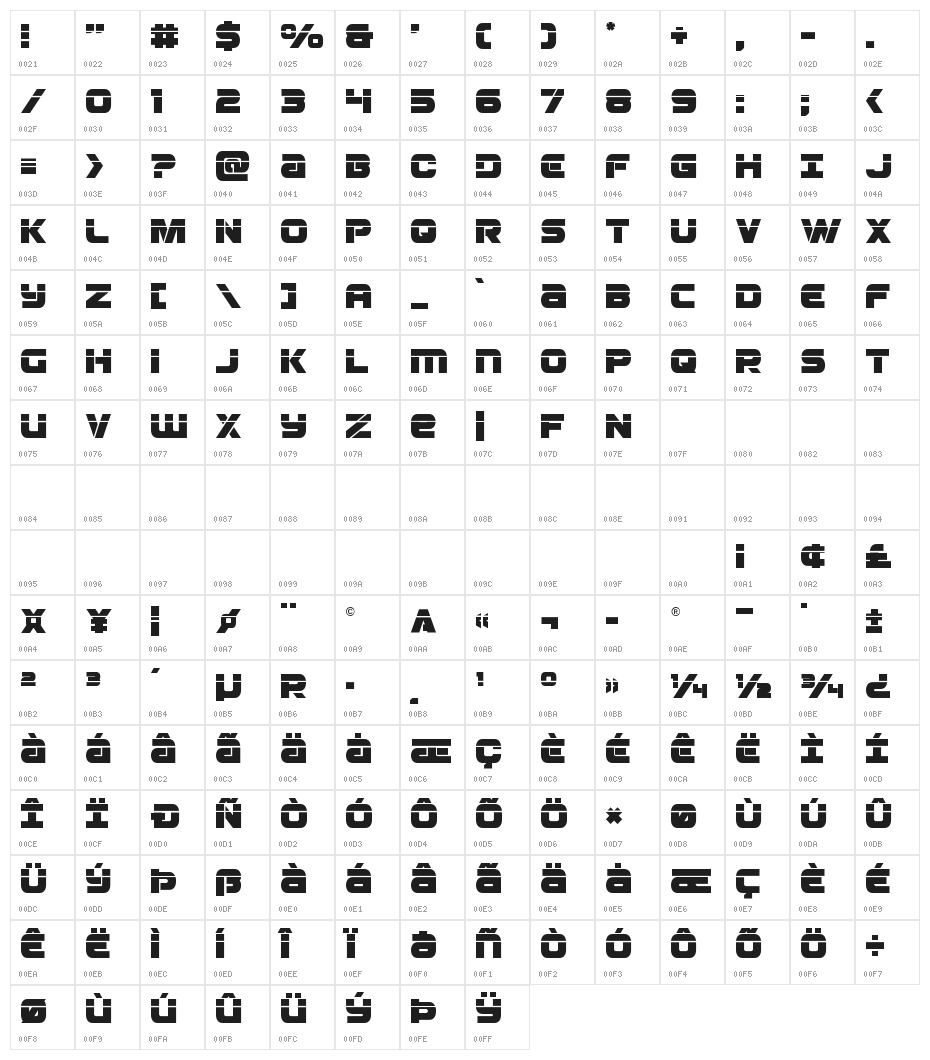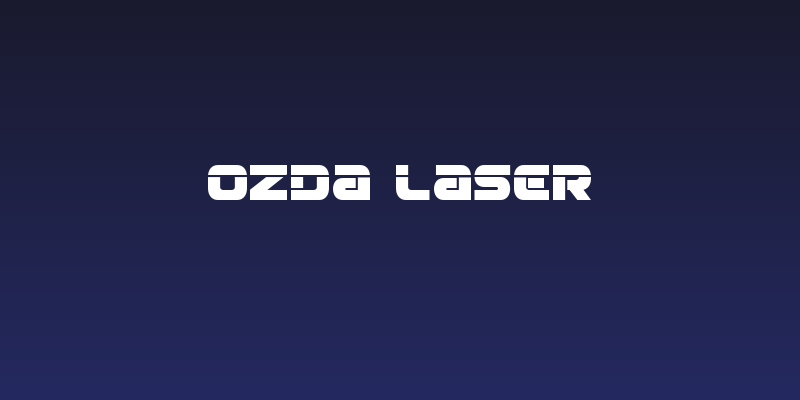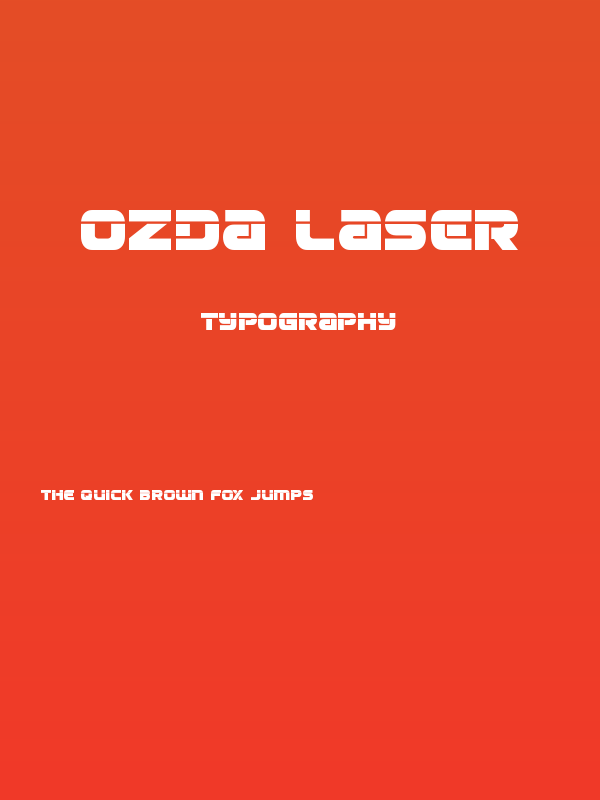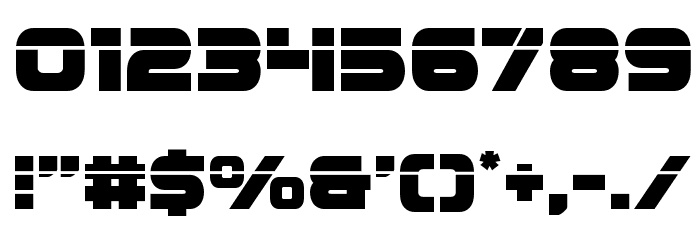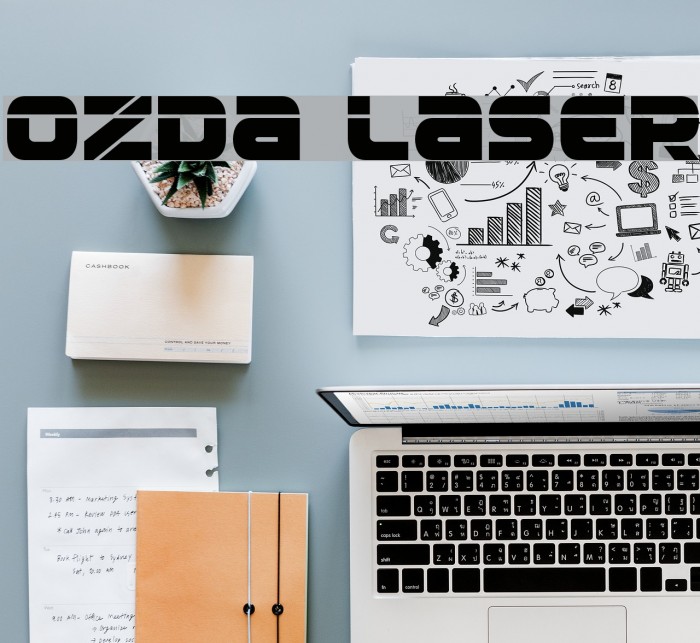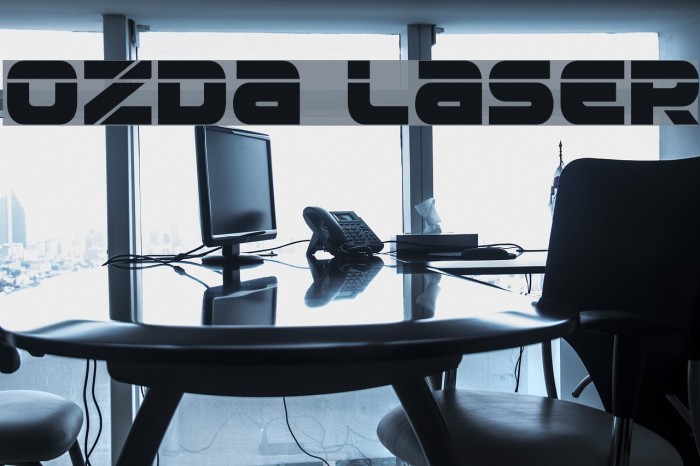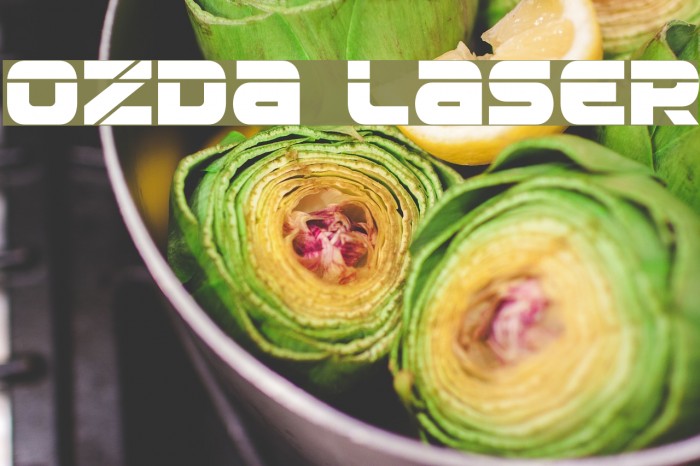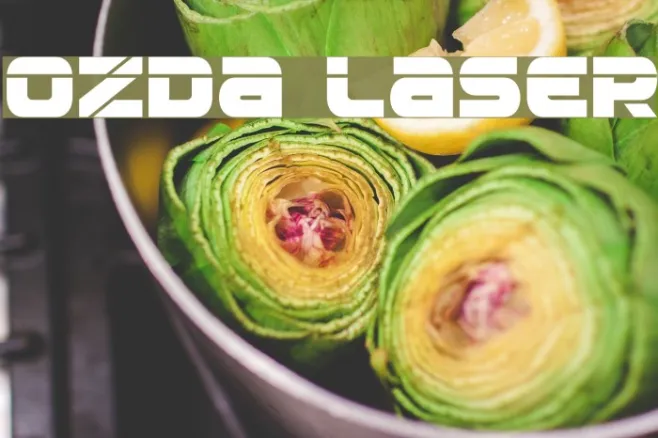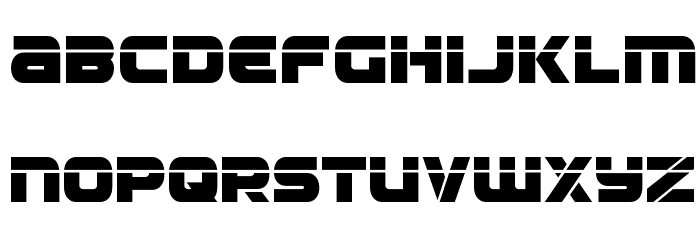
Ozda Laser Font
✎ Stencil
Ozda Laser Description
This font features a bold, futuristic design with geometric shapes and sharp angles. The characters are constructed with a stencil-like appearance, incorporating solid blocks and cut-out sections that create a dynamic and industrial feel. The uppercase and lowercase letters maintain a consistent style, emphasizing a strong visual impact. The numerals and special characters follow the same design principles, ensuring uniformity across all elements. This font's unique style makes it ideal for projects that require a modern and edgy aesthetic.
| Proposed Projects | Ideal for sci-fi themed designs, technology branding, video game titles, and modern posters. |